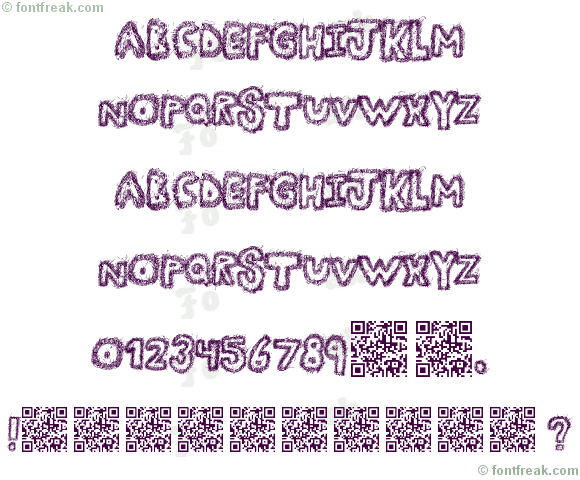
ManyFun
About ManyFun
The ManyFun font by XEROGRAPHER FONTS is a unique decorative typeface that captures attention through its whimsical and playful aesthetic. Released in 2015, this font features a distinctive style characterized by its irregular, hand-drawn appearance, which gives it an organic, fun feel. The stroke weight varies throughout the characters, creating a lively contrast that enhances its visual appeal. The spacing is intentionally uneven, contributing to the font’s quirky charm, while the decorative elements, including frayed edges and playful curves, add to its personality.
ManyFun is well-suited for a variety of creative projects. It shines in applications such as children's book covers, where its playful nature engages young readers. It can also be effectively used for birthday party invitations, adding a festive touch that captures the spirit of celebration. Additionally, restaurant menus that aim for a casual and inviting atmosphere can benefit from its unique flair. For graphic designers and content creators, ManyFun serves as a great choice for social media graphics, particularly when aiming to convey a fun and approachable brand identity.
The target audience for the ManyFun font includes graphic designers looking for a distinctive typeface to elevate their projects, small business owners in creative industries, and content creators who want to add a playful touch to their digital and print materials.
What sets the ManyFun font apart is its ability to evoke a sense of joy and creativity. Its handcrafted look and feel make it an excellent choice for anyone aiming to create a memorable visual experience. For those interested in adding this whimsical typeface to their collection, the ManyFun font free download offers an accessible opportunity to infuse a sense of fun into their designs.